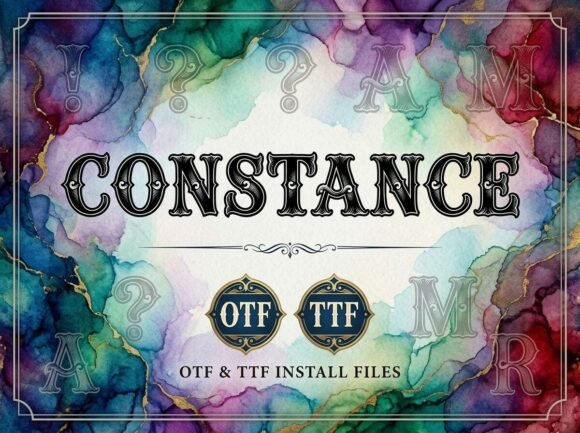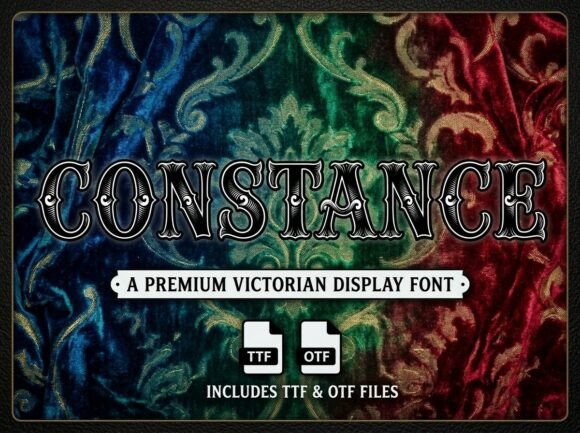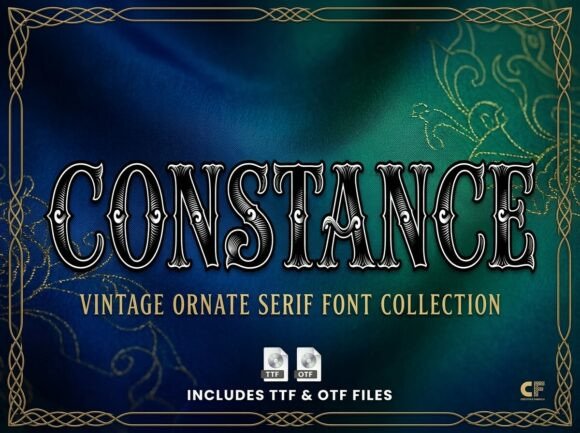
Introducing Constance Font: A Stunning Decorative Display Font
Are you tired of using the same old fonts for your creative projects? Look no further than Constance Font, a breathtaking decorative display font that’s sure to turn heads. Designed to be the center of attention, this font boasts unique artistic elements and a strong visual personality that will elevate your designs to the next level.
What Makes Constance Font Special?
Constance Font is a versatile decorative font that’s perfect for creators who want to break away from the ordinary. Its stunning design makes it ideal for bold headlines, artistic logos, and creative packaging, while maintaining a professional and polished finish. Whether you’re a graphic designer, artist, or crafty DIY enthusiast, this font is sure to inspire your next project.
Before purchasing Constance Font, please note that it’s an ALL-CAPS (Uppercase Only) display typeface. This means that it does not include lowercase letters. It’s specifically designed for high-impact headlines, logos, and decorative initials where every letter is a work of art. This unique design approach allows for maximum visual impact, making it perfect for attention-grabbing designs.
Use Cases for Constance Font
Constance Font is perfect for a variety of creative projects, including:
- Headlines and Titles: Use Constance Font to create bold, eye-catching headlines that demand attention.
- Logos and Branding: Create a lasting impression with a custom logo designed using Constance Font.
- Packaging and Product Design: Add a touch of elegance and sophistication to your product packaging with Constance Font.
- Artistic Projects: Use Constance Font to add a decorative touch to your artistic projects, such as posters, flyers, and brochures.
Tips for Using Constance Font
To get the most out of Constance Font, here are a few tips:
- Use it sparingly: Due to its bold and decorative nature, Constance Font is best used sparingly to maximize its impact.
- Experiment with colors and textures: Don’t be afraid to experiment with different colors and textures to add depth and interest to your designs.
- Pair it with a simple font: For body text, pair Constance Font with a simple, easy-to-read font to create visual contrast.
Constance Font is a stunning decorative display font that’s sure to elevate your creative projects to the next level. With its unique artistic elements, strong visual personality, and versatility, it’s perfect for designers, artists, and crafty DIY enthusiasts. Whether you’re looking to create bold headlines, artistic logos, or creative packaging, Constance Font is the perfect choice.